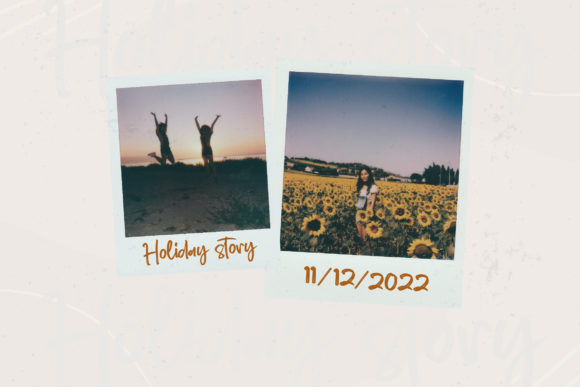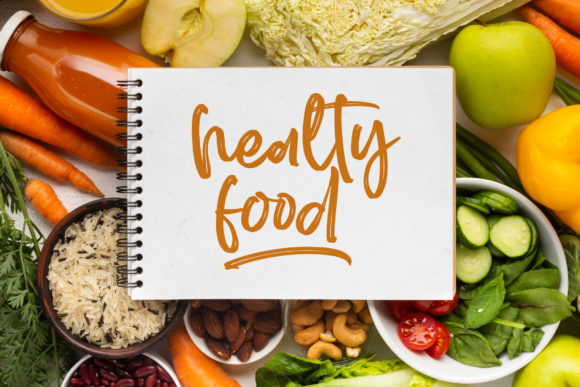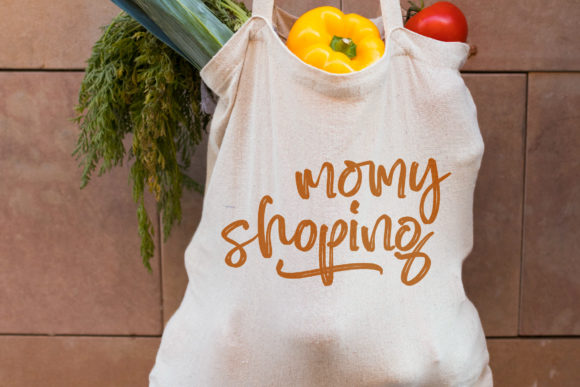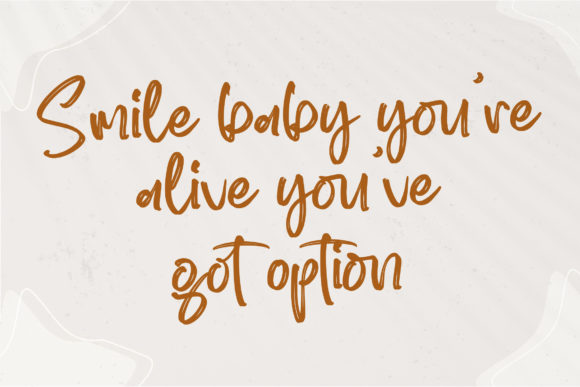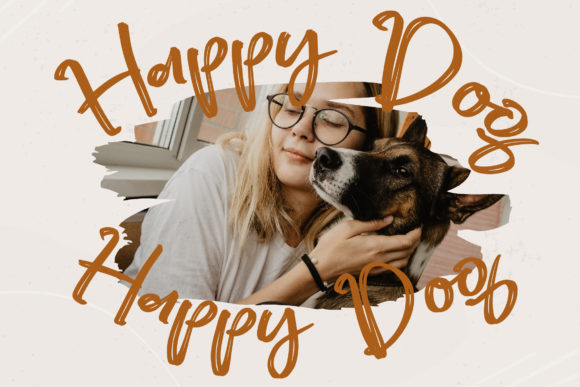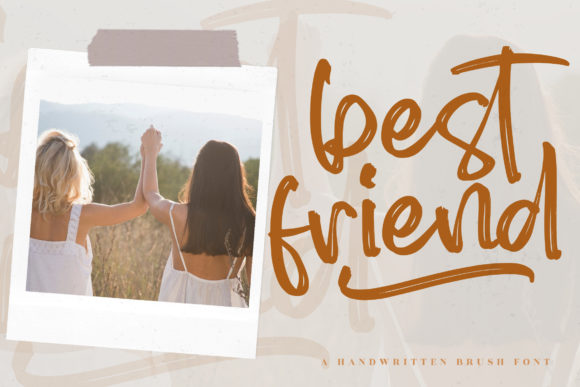
Introduction to Kassogi Font
Have you ever been working on a design project and felt like something was missing? A dash of personality, a pinch of flair, a sprinkle of whimsy? That’s where the Kassogi Font comes in – a sweet and trendy handwritten font that adds elegance and class to any creative project. Whether you’re designing a logo, creating a social media post, or building a brand identity, this font is the perfect design resource to elevate your work.
With its high-quality glyphs and swashes, the Kassogi Font is a valuable asset for designers looking to add a personal touch to their projects. Plus, with its PUA encoding, accessing all the glyphs and swashes is a breeze – even on a transparent background. This means you can focus on what really matters: bringing your creative vision to life.
Key Features of Kassogi Font
- High-quality, professional font design suitable for various creative projects
- Includes a wide range of characters, including Latin, Cyrillic, and Greek alphabets, making it a versatile font
- Unique characteristics: elegant script, cursive style, and ornate details, perfect for adding a touch of sophistication to any design
Honest Review: Kassogi Font
I recently stumbled upon the Kassogi Font while searching for a high quality design resource for a creative project. As a designer, I was excited to try it out and see if it would meet my expectations.
Here are some of the things that worked well for me: ✨ The Kassogi Font has a unique, modern aesthetic that’s perfect for contemporary designs. The font is highly customizable and offers a range of styles and weights to suit different needs. It’s also available for free download, which is a big plus for designers on a budget.
- Wide range of styles and weights available
However, I did encounter a few limitations: ⚠️ The font doesn’t work well with transparent backgrounds, which can be a bit of a problem for designers who like to use this feature. Additionally, the font files can be quite large, which may slow down loading times for certain designs.
Overall, I was impressed with the Kassogi Font and would definitely recommend it to designers who are looking for a high-quality, modern font for their creative projects.
Kassogi Font is commonly used for creative projects such as logos, infographics, and presentations. Its high-quality design and transparent background make it an ideal choice for designers and artists.
Does the Kassogi Font support a transparent background?
Yes, the Kassogi Font is designed to work seamlessly with transparent backgrounds. Its vector-based design allows it to scale to any size without losing quality, making it perfect for use on websites, social media, and other digital platforms where a transparent background is often required.